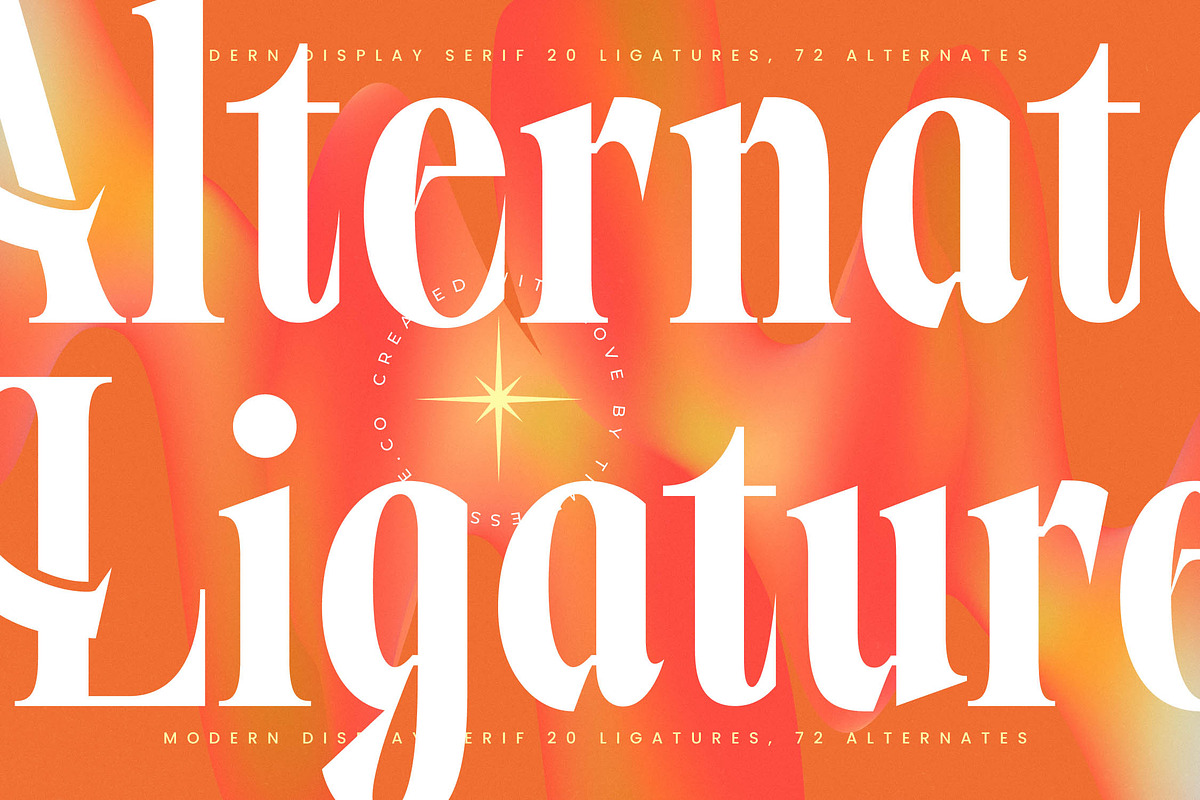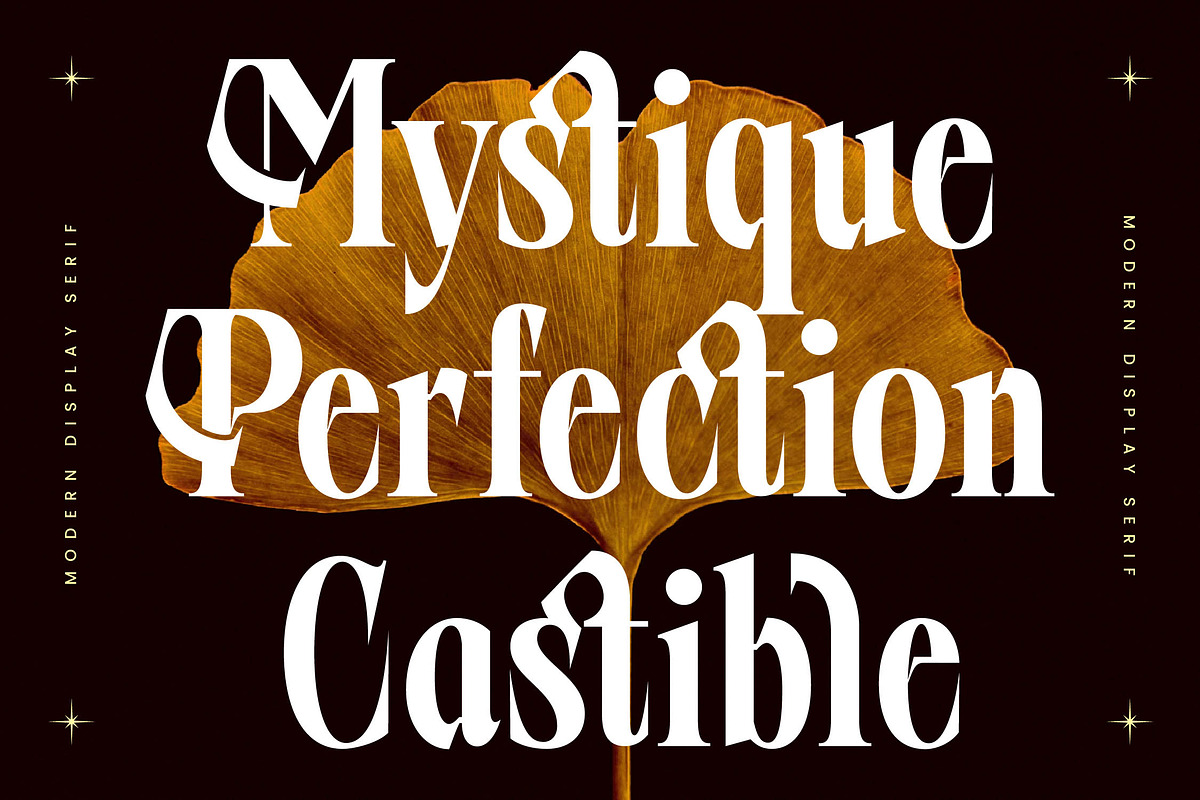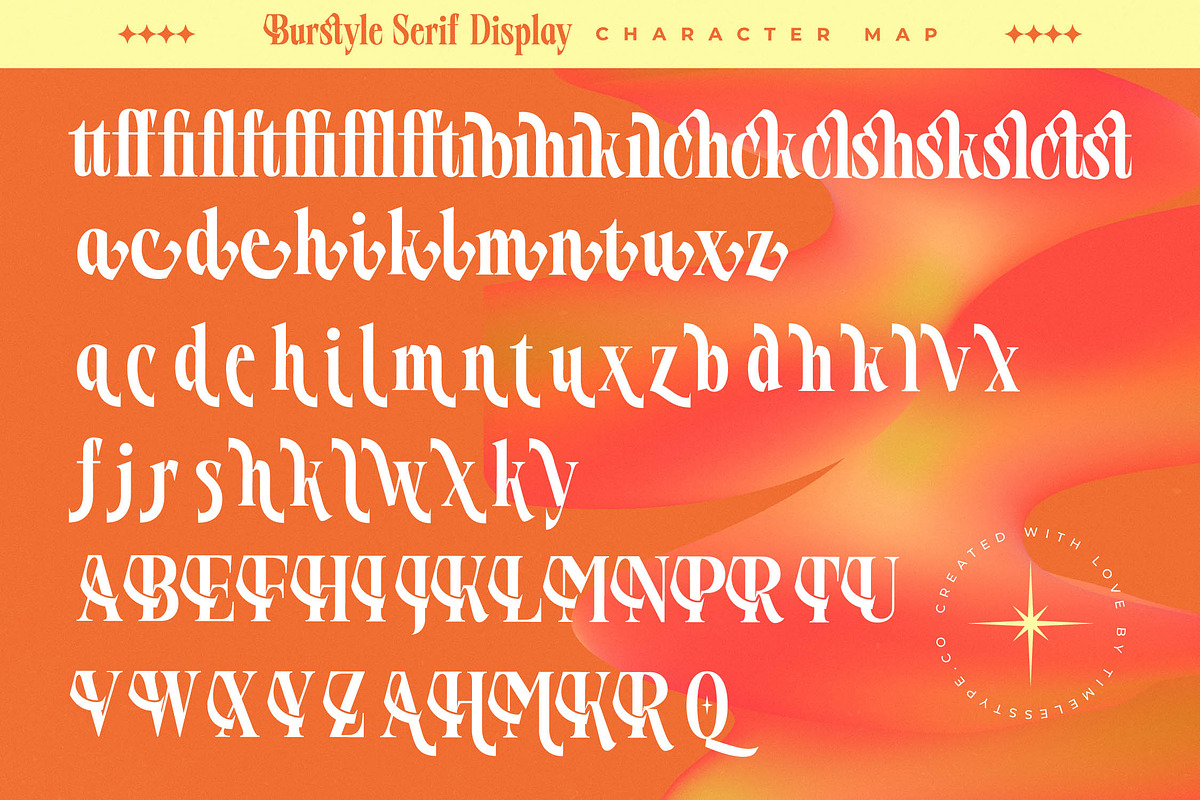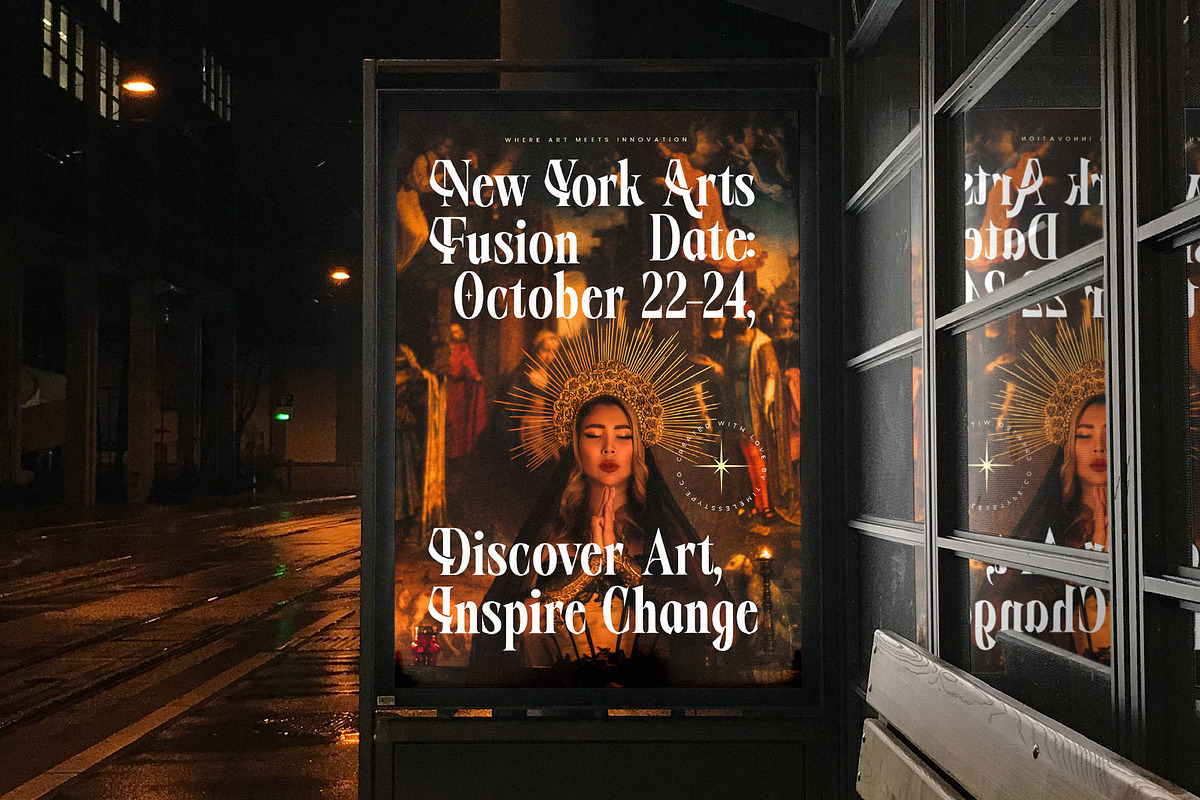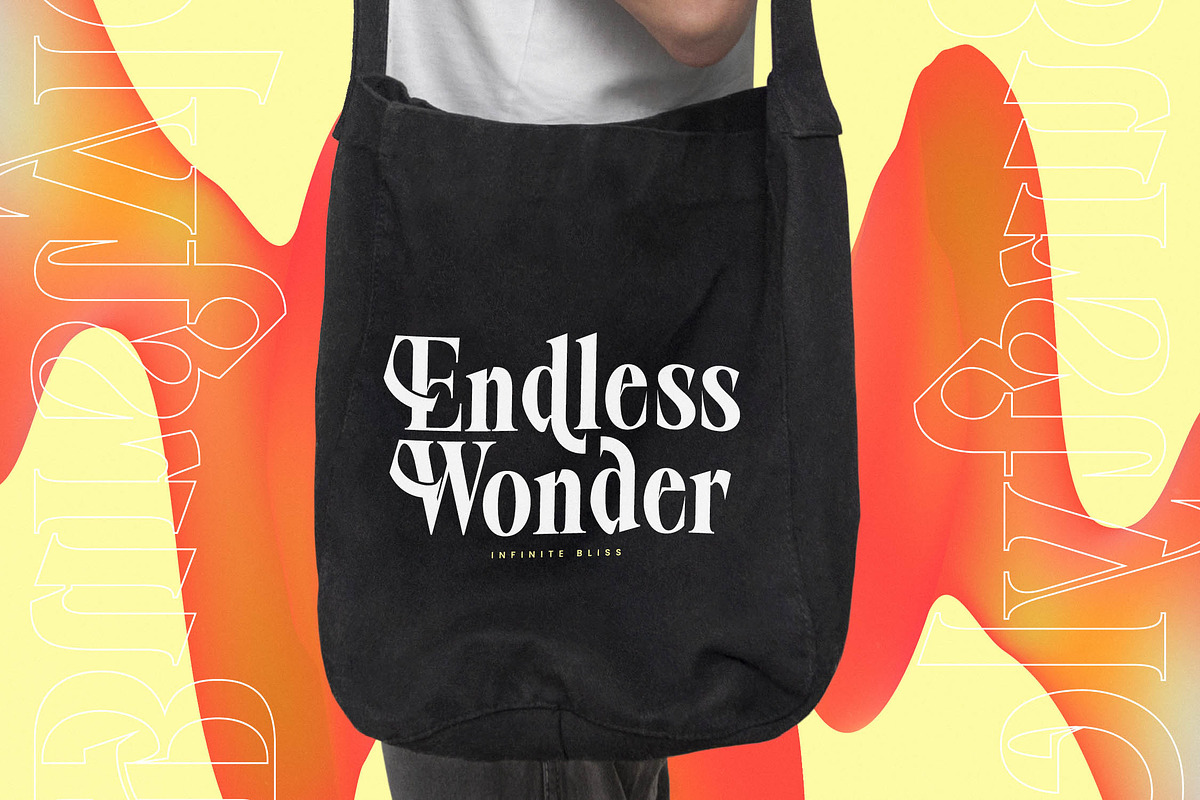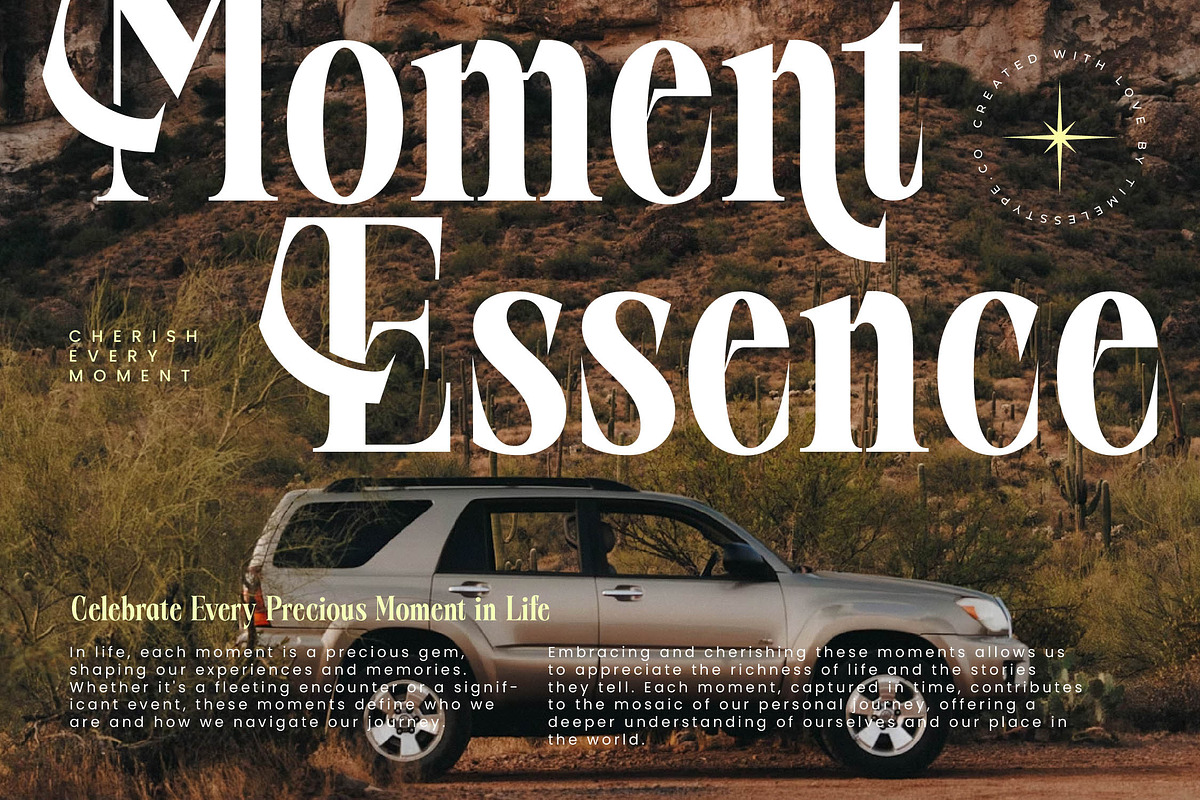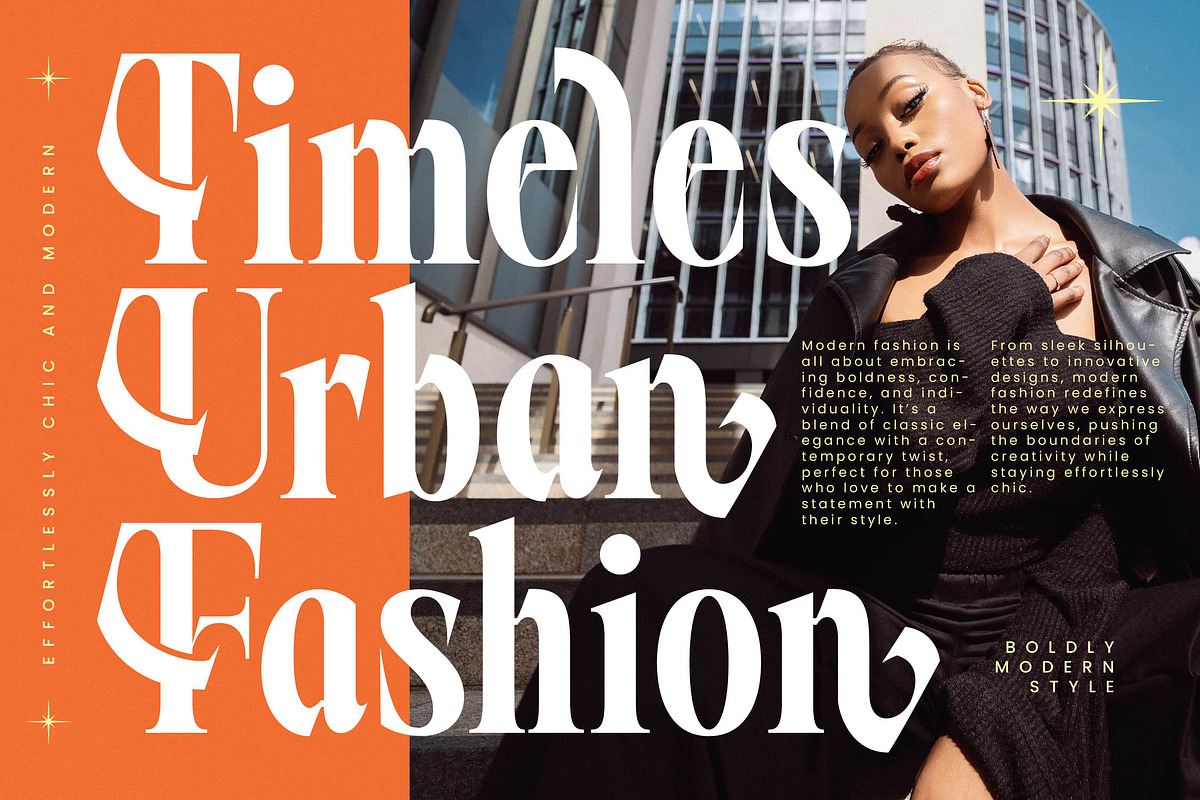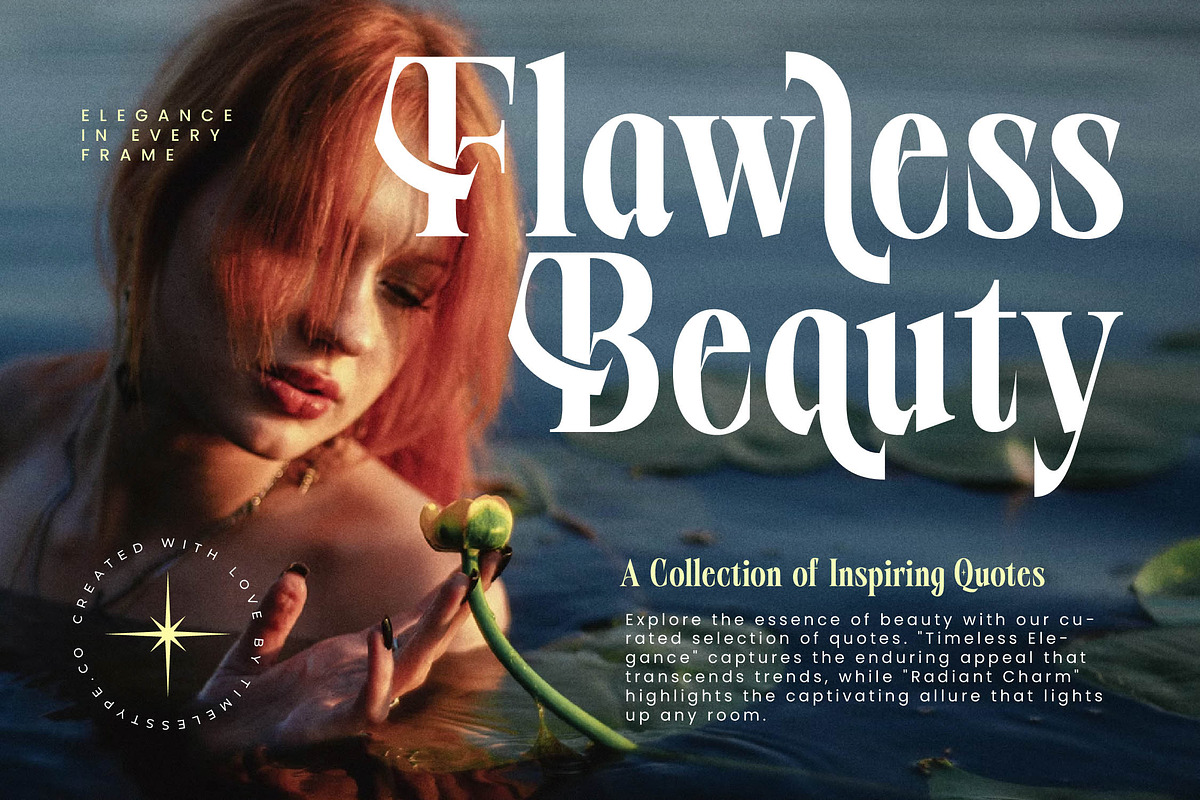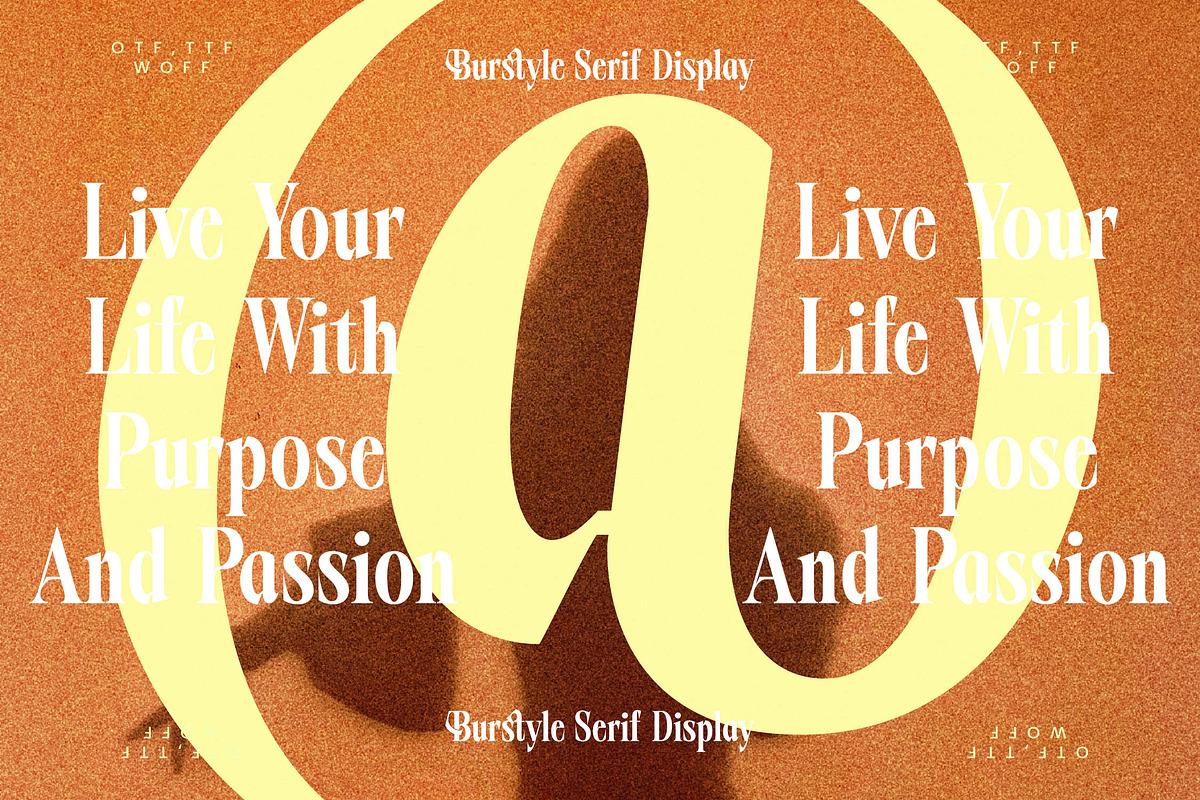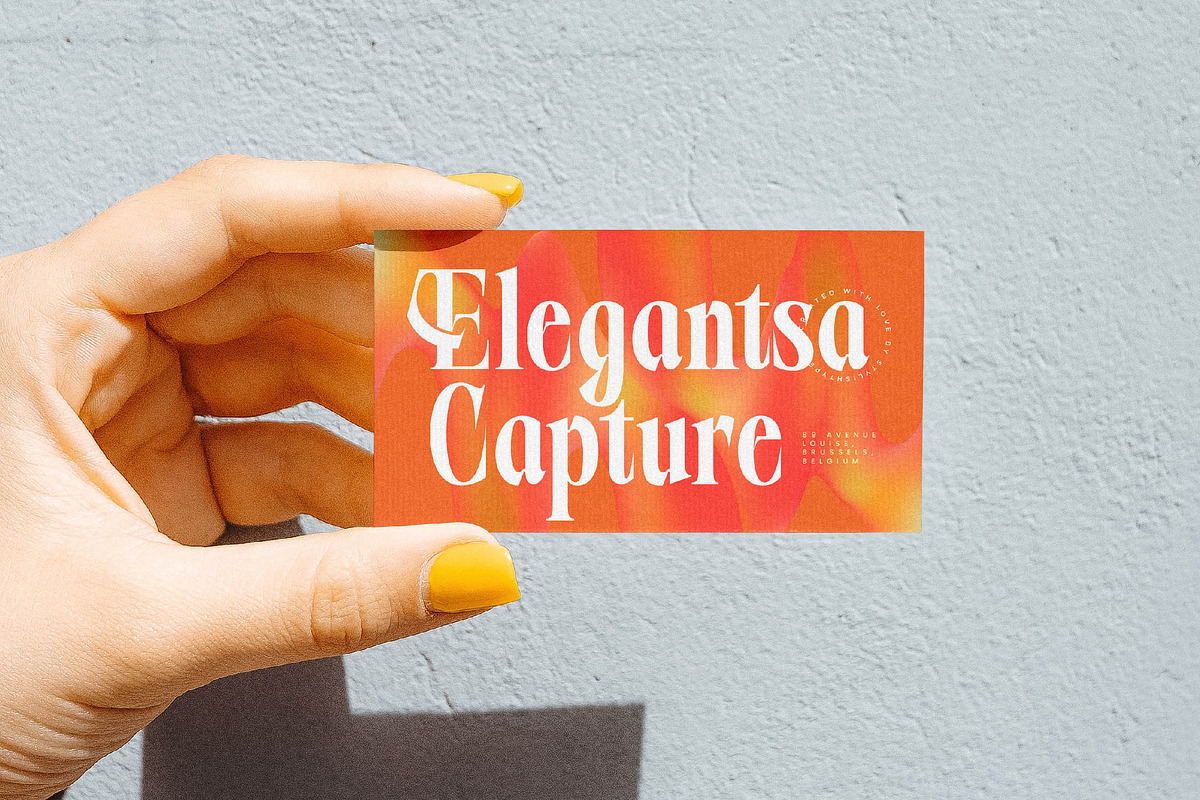
Burstyle Modern Serif Display
Elevate your creative vision with Burstyle Modern, a breathtakingly elegant typeface designed to command attention and inspire awe. It strikes a perfect balance between timeless sophistication and contemporary edge, making it an essential tool for designers seeking a unique and powerful voice.
Inspired by the fluid motion of light and the structured elegance of high-fashion layouts, this font captures a sense of dynamic energy within every stroke. The deliberate interplay of sharp serifs and flowing curves creates a visual rhythm that feels both grounded and ethereal, perfect for high-impact storytelling.
This modern serif display is defined by its luxury typography and high-contrast serif strokes that ensure a lasting branding impact for any project. Every character is meticulously crafted to function as a premier editorial font that speaks with authority, grace, and undeniable style.
Staying ahead of the modern serif trend, this typeface embraces the shift toward character-driven typography and expressive, artistic forms. It is perfectly positioned alongside current editorial display fonts used by global trendsetters and leading creative agencies to define the visual landscape.
Ideal for high-end logo design and comprehensive branding projects, it also excels in complex editorial layouts for digital and print magazines. Its versatile nature makes it a stunning choice for luxury packaging, romantic wedding stationery, and bold fashion identities that require a touch of class.
Unlock a world of creative possibilities with 20 unique ligatures and 72 stylized alternates that allow for custom-tailored designs in seconds. The package also includes full multilingual support and international characters to ensure your message reaches a global audience with ease and consistency.
- Ligature 20 Alternate 72